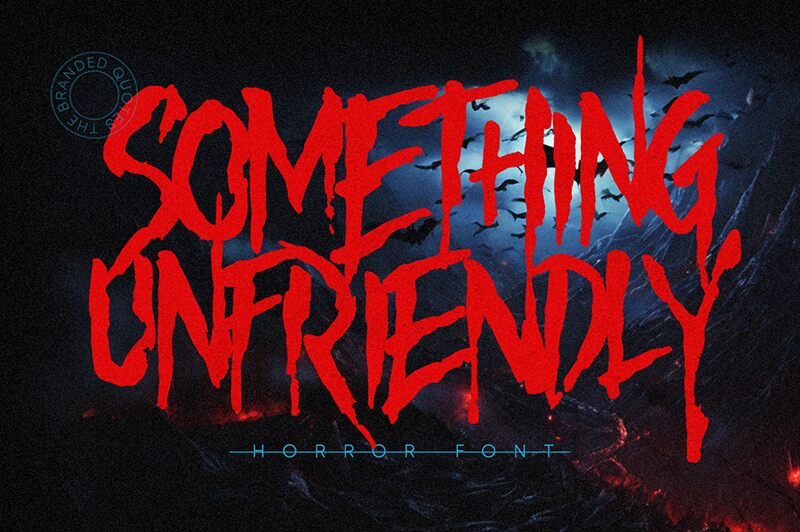
Something Unfriendly emerges from the depths of horror-inspired typography, a chilling display font meticulously crafted by The Branded Quotes. Its condensed style exudes a sense of dread, perfect for evoking fear and unease in any creative endeavor. Born from the dark embers of water-based poster ink and caressed by a round brush, each glyph revels in its jagged edges and slow-dripping aesthetics, reminiscent of a classic horror scene.
This font is not just about its unsettling appearance; it's an invitation to experiment with the ominous undertones that lurk within its design. The rough paper texture enhances the sinister vibe, making each character appear as though it's been scratched into existence by unseen hands. Something Unfriendly is particularly versatile for projects looking to capture that spine-tingling sensation-book covers, movie posters, Halloween promotions, or any platform daring enough to embrace its eerie charm.
Leveraging this font's full potential requires playing with the duality of uppercase and lowercase letters-a dance between shadows and whispers that can give your project a unique presentation sure to leave an unsettling impression. Embrace Something Unfriendly for your next venture into the macabre and let your designs whisper tales of terror.